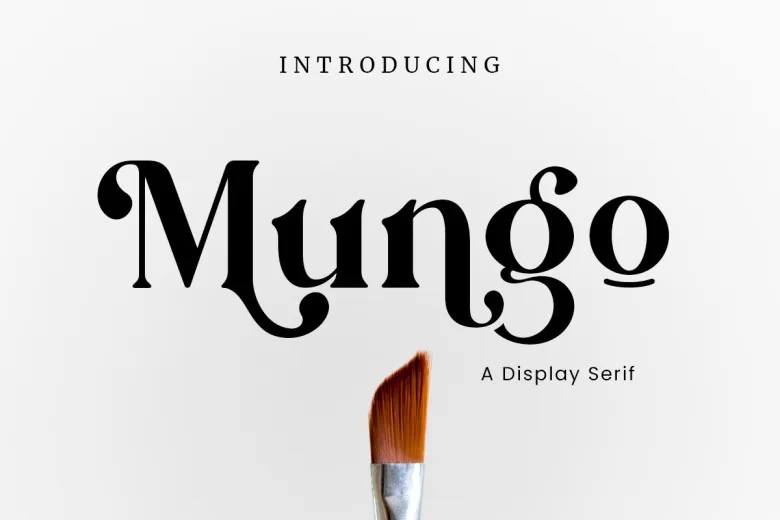
Mungo Font
Mungo is a stylish and elegant serif font. With its unique alternates and ligatures, it works well for a wide range of projects.
Mungo Serif Font